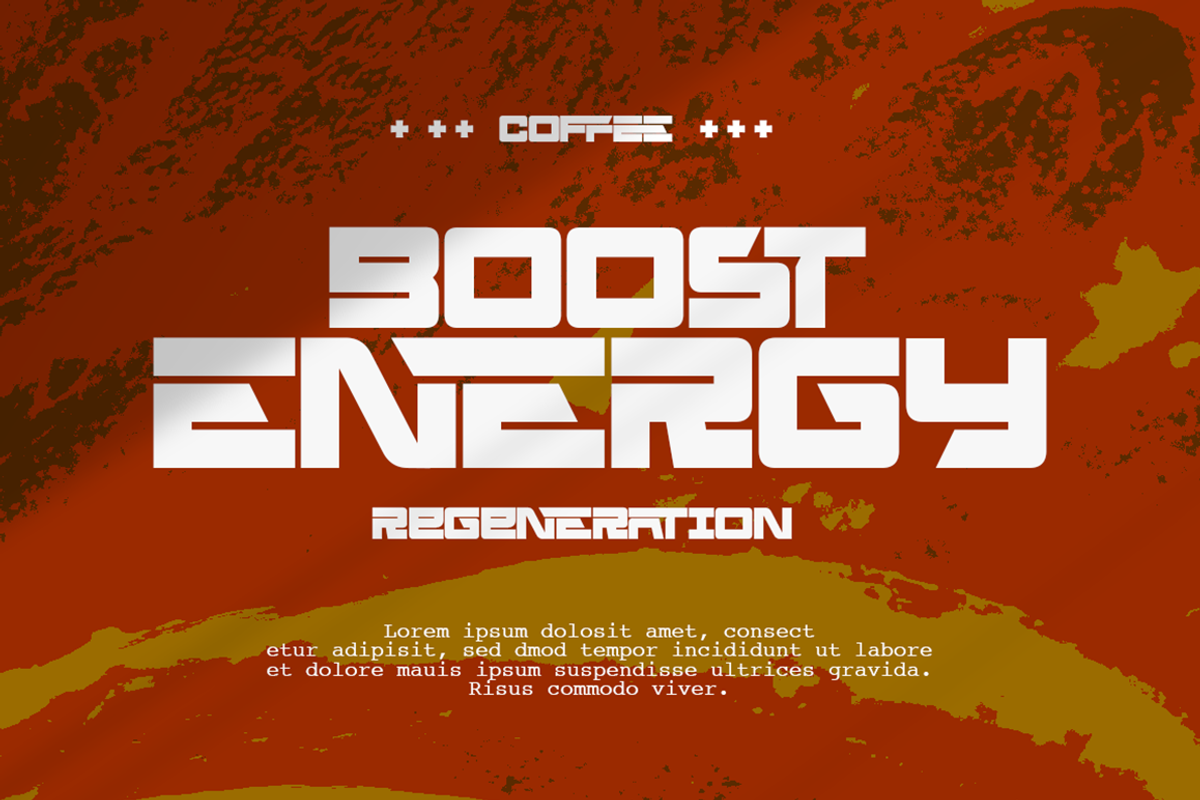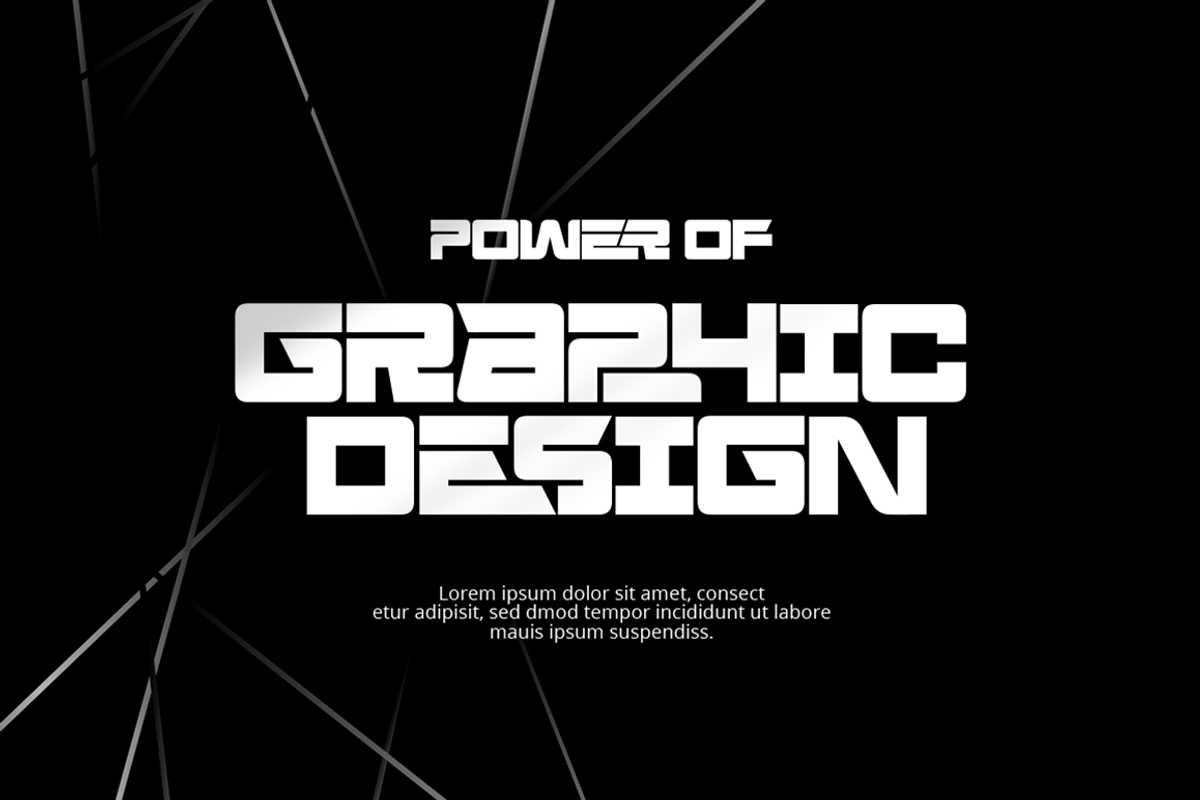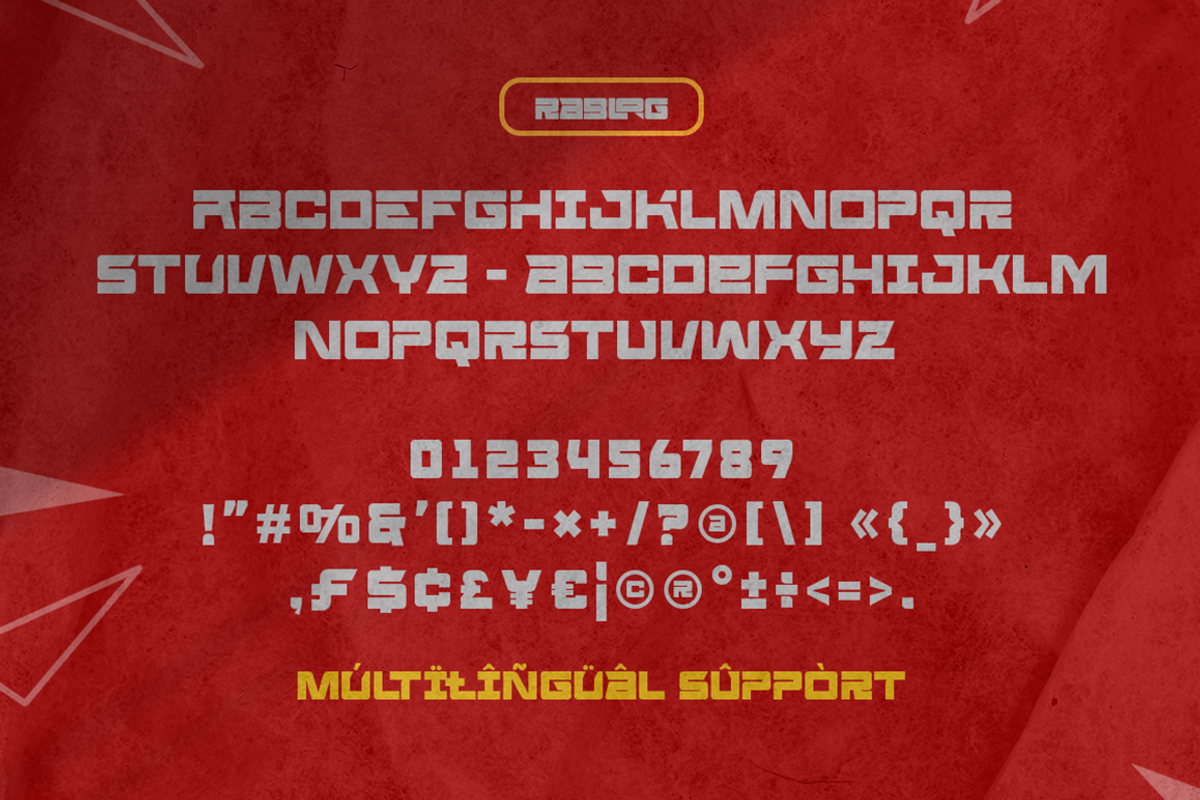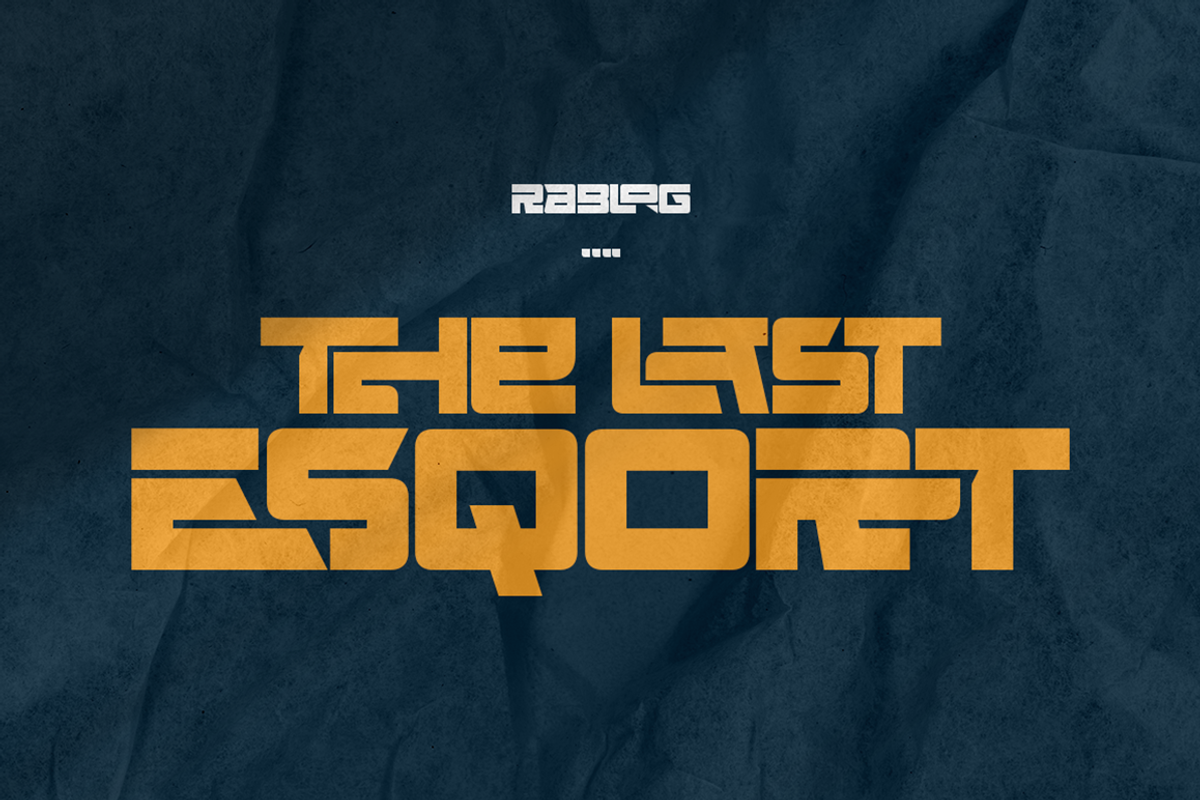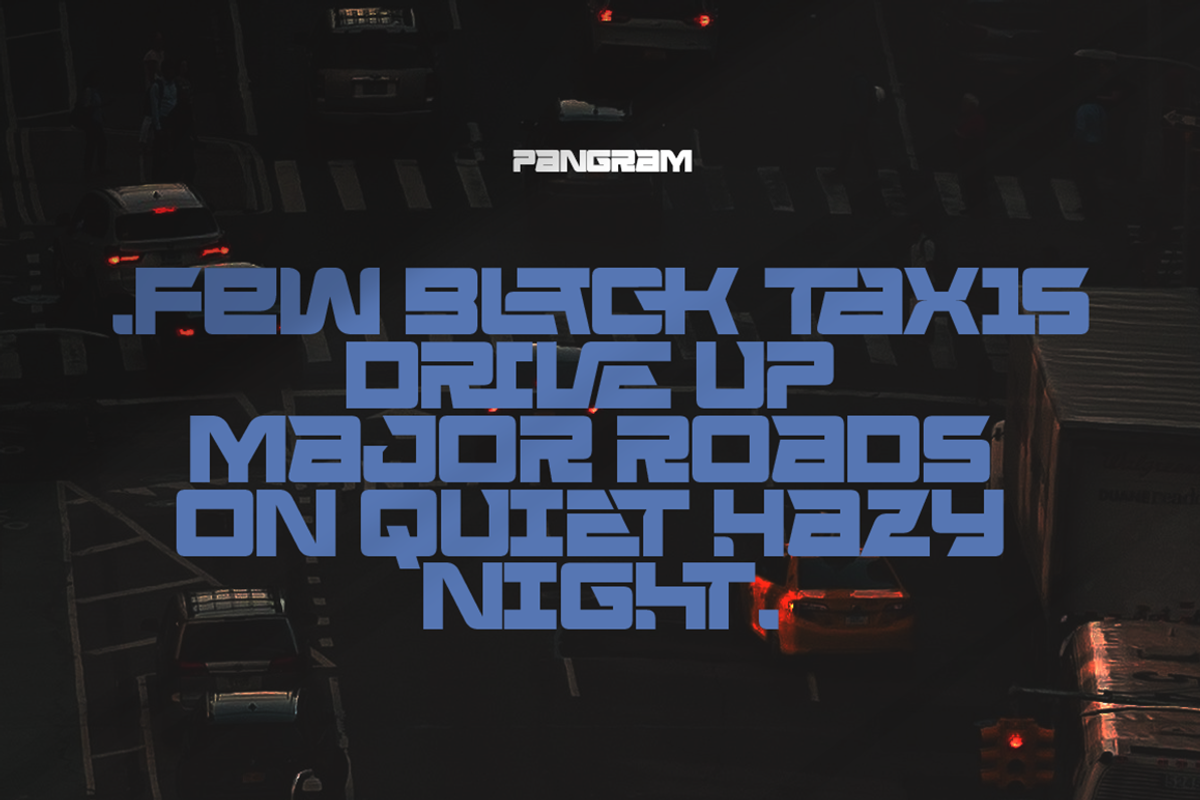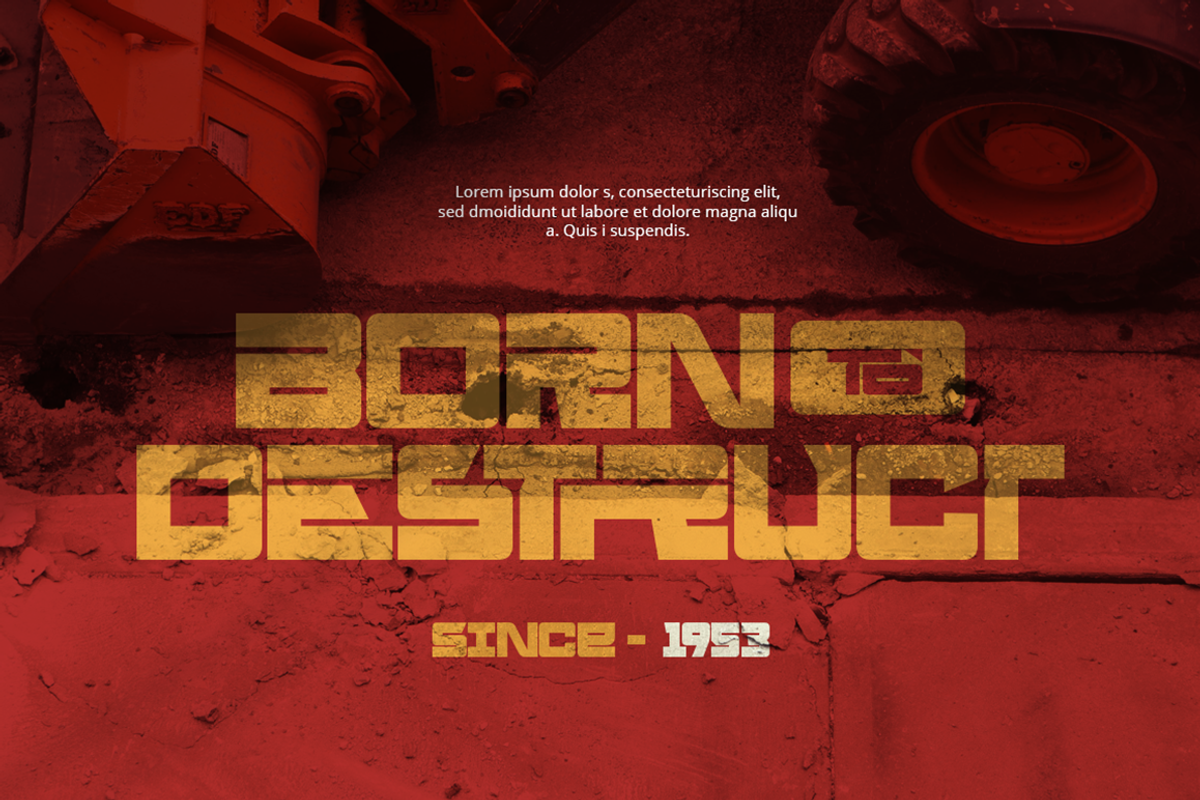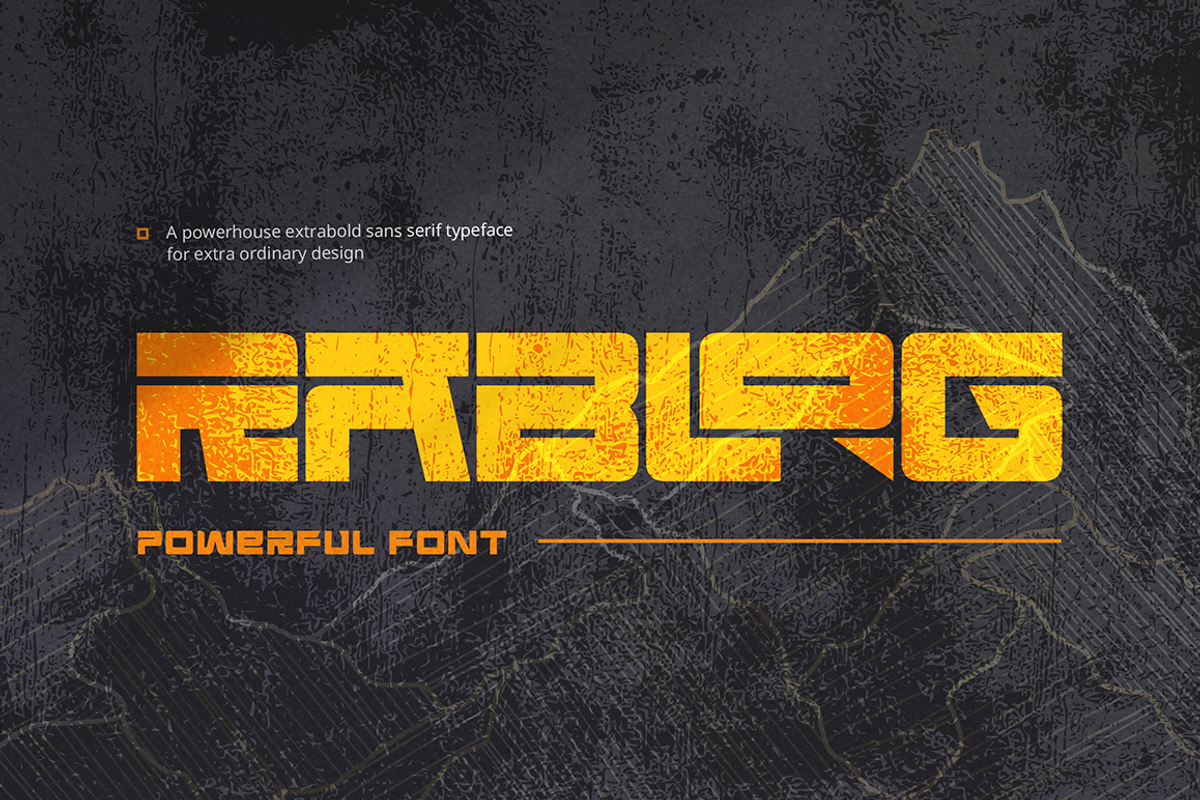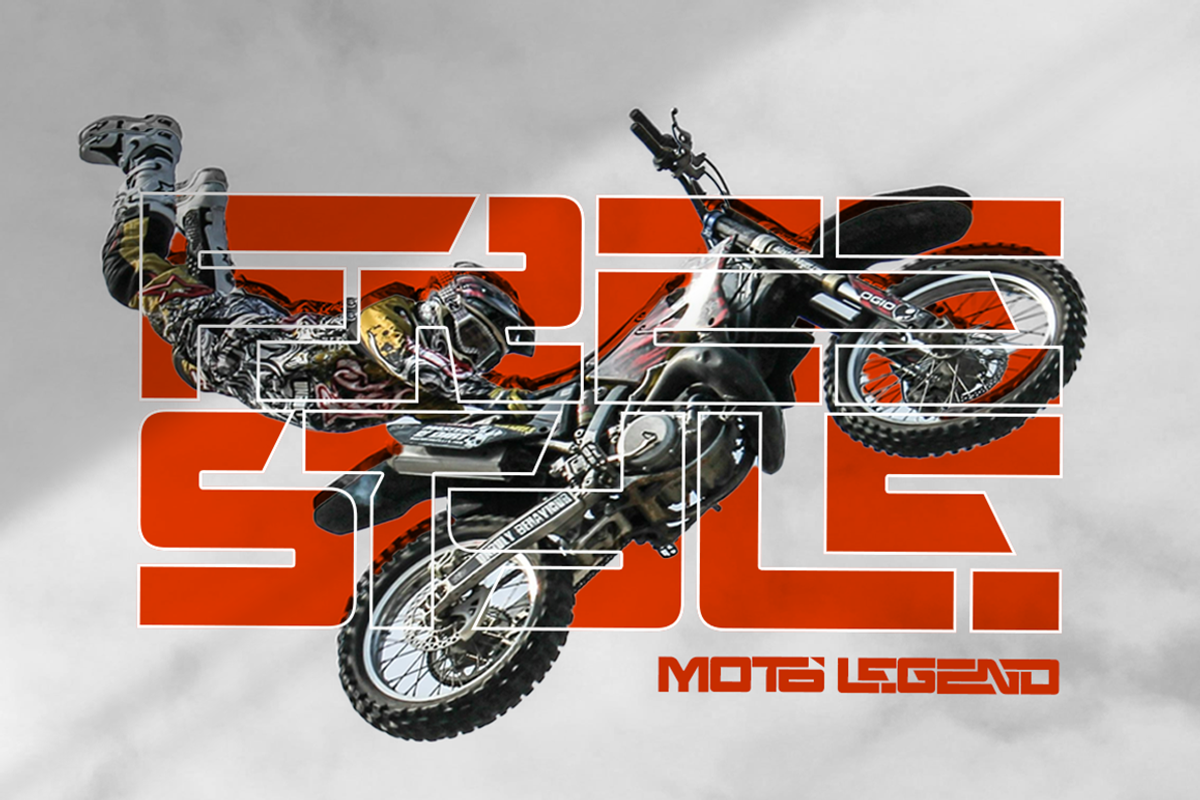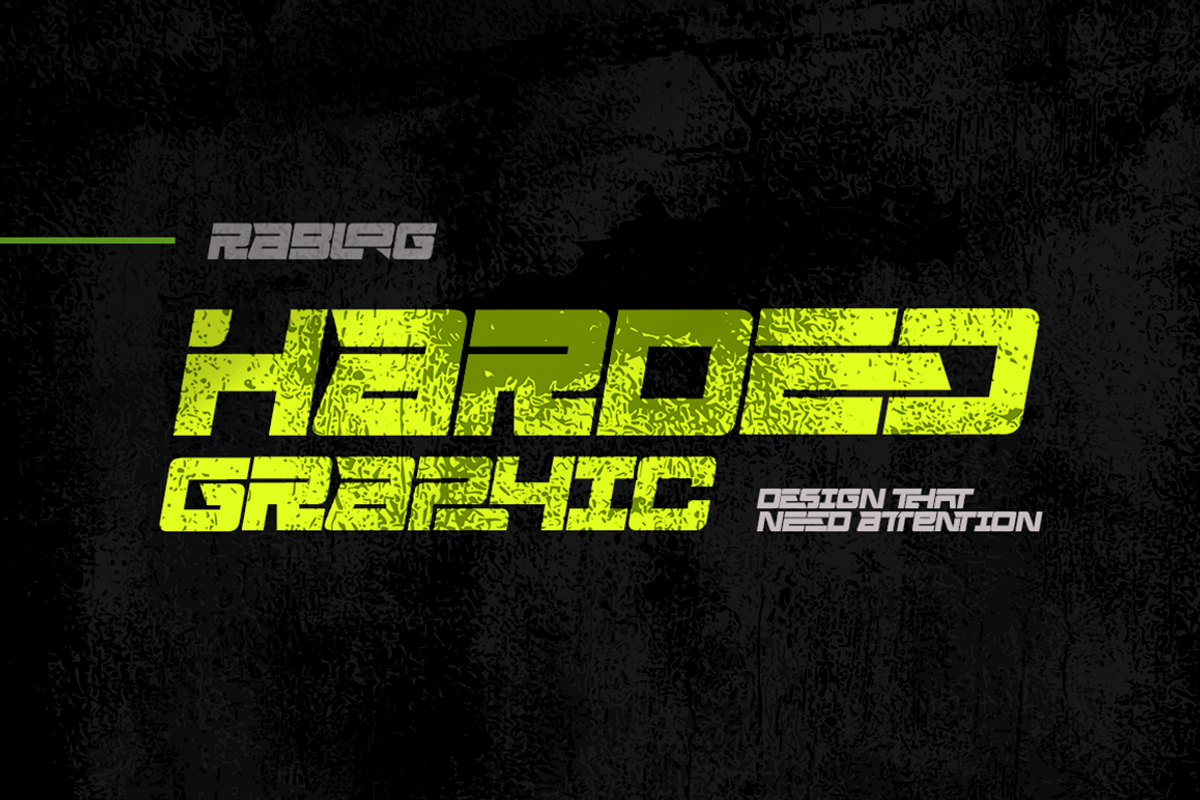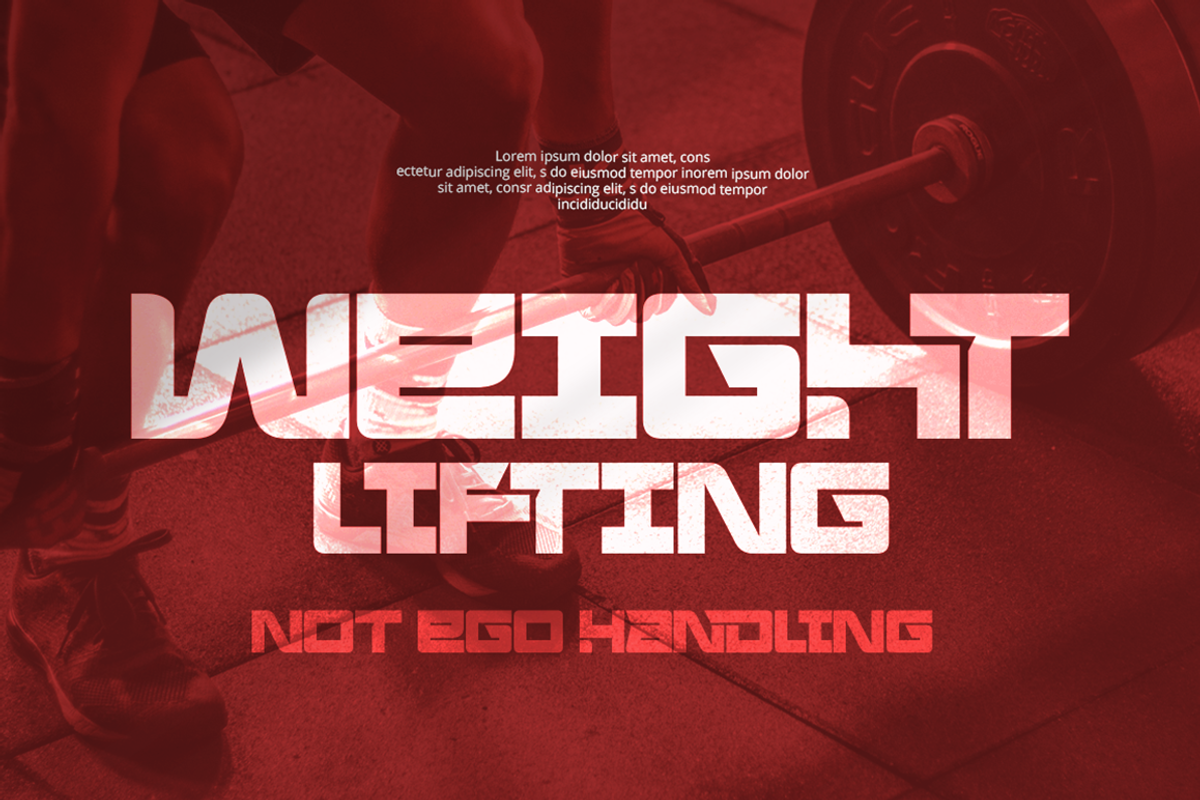
Rablog - Powerful Display Font
Rablog is a bold and modern expanded display font designed to make a powerful visual impact. With its wide stance and confident letterforms, Rablog delivers a striking presence that’s perfect for headline treatments, branding, logo design, and other creative projects that demand attention. The font’s black type weight emphasizes strength and clarity, making it ideal for use in high-impact layouts where legibility and bold aesthetics are key. Whether you’re designing for tech, fashion, or editorial, Rablog brings a contemporary edge and a commanding voice to your work.
- Black Expanded font
- Modern and Strong Style
- Unique Pairs of Ligatures
- Basic Latin Glyphs
- All Caps Font
- Currencies